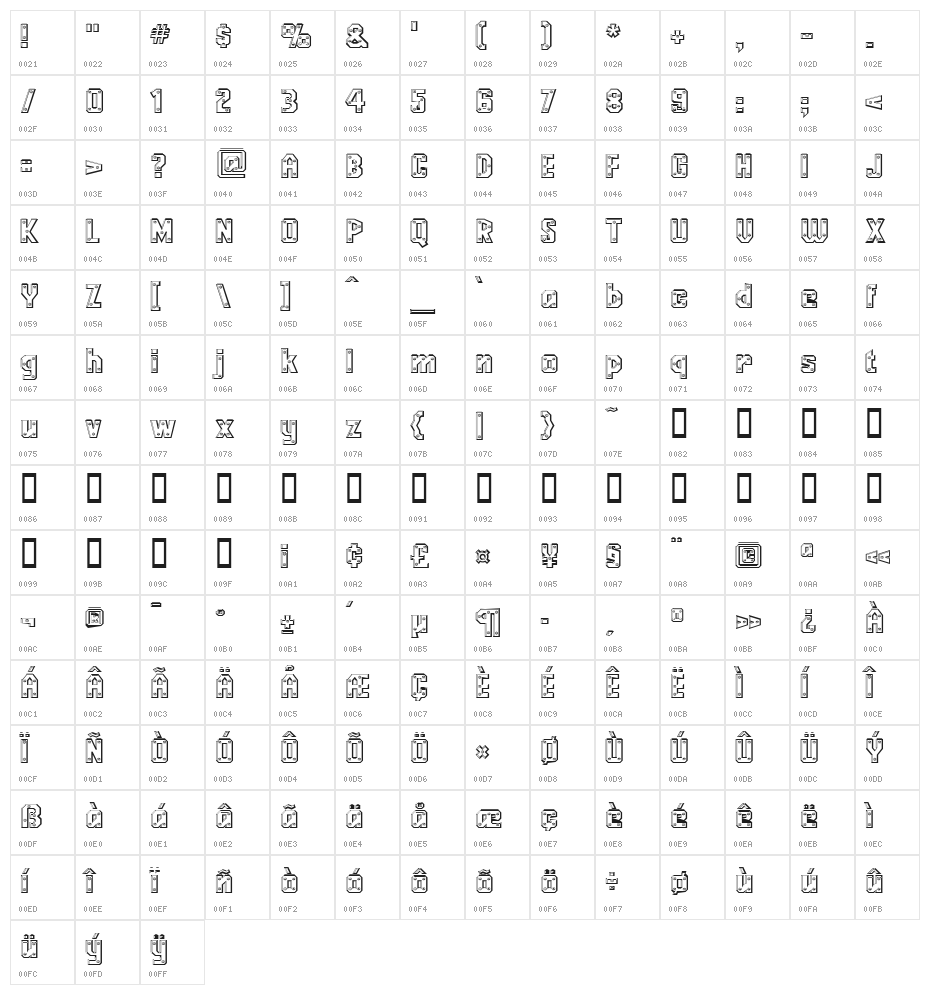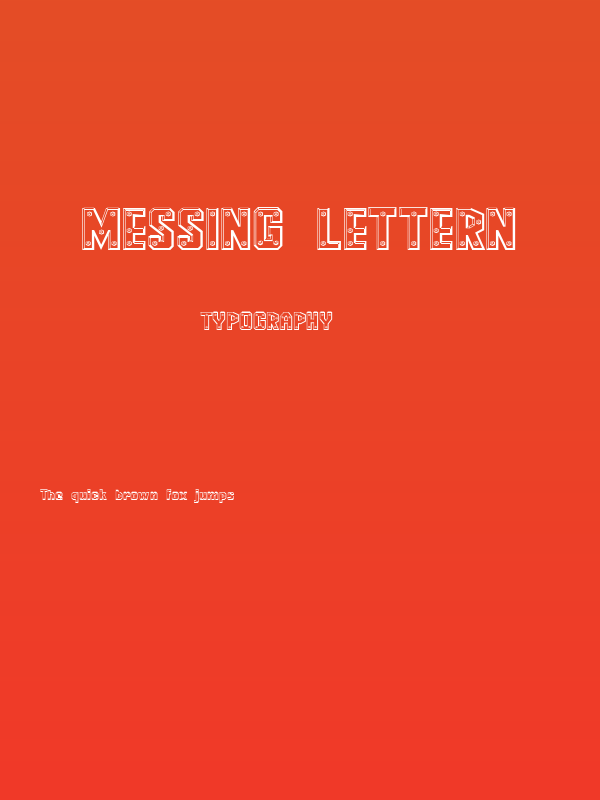
Messing Lettern Font
Messing Lettern Description
This font features a bold, industrial design with a three-dimensional effect. Each character is constructed with a series of bolts and rivets, giving it a mechanical and robust appearance. The letters are outlined with a thick black border, enhancing the 3D illusion and adding depth. The overall style is reminiscent of machinery and engineering, making it suitable for projects that require a strong, impactful visual presence. The font maintains a consistent structure across uppercase, lowercase, numerals, and special characters, ensuring uniformity and readability.
| Overall Style | Industrial, Mechanical |
| Proposed Projects | Ideal for industrial-themed posters, engineering presentations, and branding for machinery or automotive companies. |